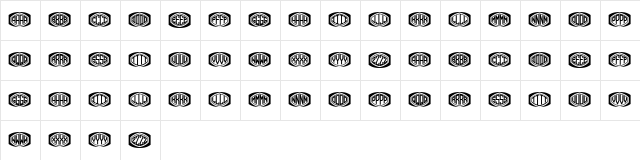
Bulged Monogram Stylish Flat Regular
Design Context for Bulged Monogram Stylish Flat Typeface
Bulged Monogram Stylish Flat uses fixed-width spacing throughout, giving it the structured, systematic character associated with coding environments and technical documentation.
A natural fit for code editors, technical documentation, developer-focused branding, and terminal-inspired UI.
Pro Tip: Pair Bulged Monogram Stylish Flat with a proportional sans for UI contexts where code-style labels and regular body copy need to coexist.